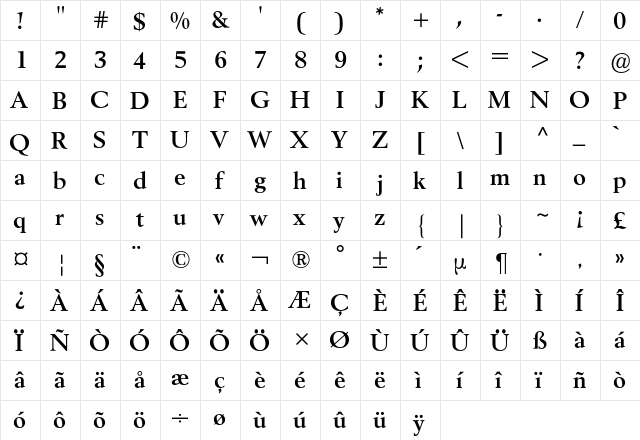
Berling BQ Regular
Design Context for Berling BQ Typeface
Berling BQ offers clean, dependable letterforms without strong stylistic allegiance, making it a practical choice for designers who need flexibility.
Pro Tip: Use Berling BQ in both headline and body roles to test its range before committing to a single application.